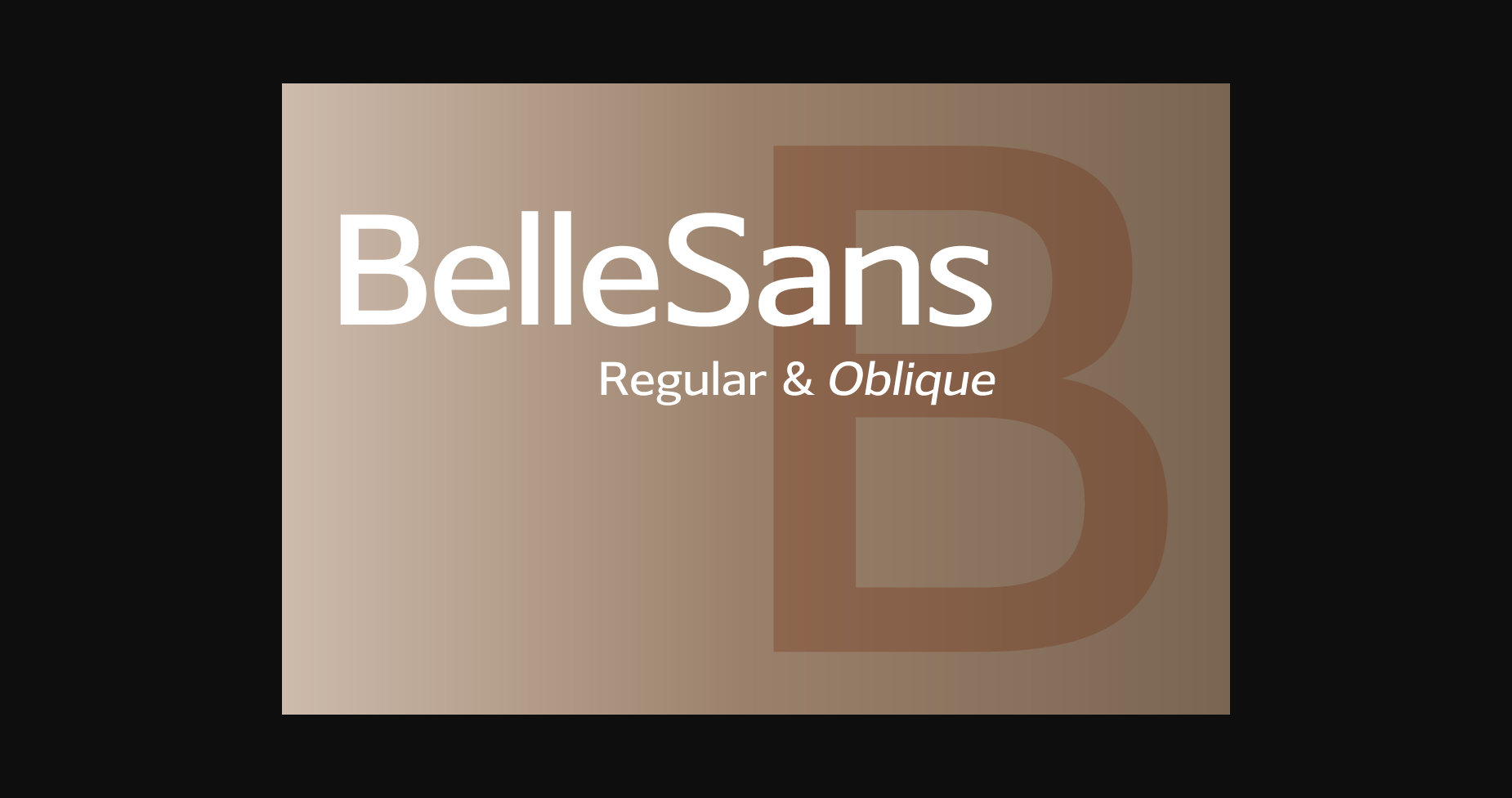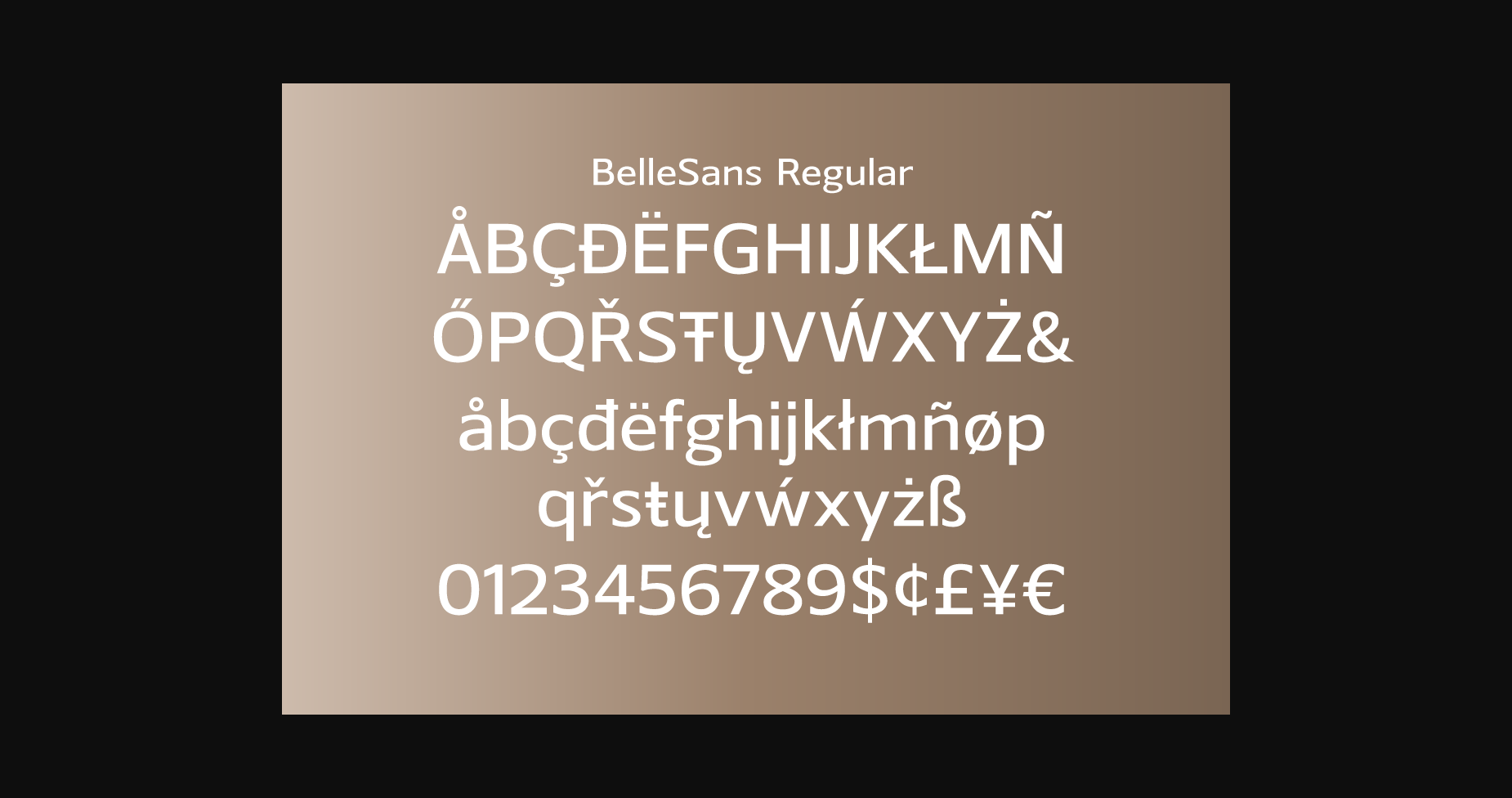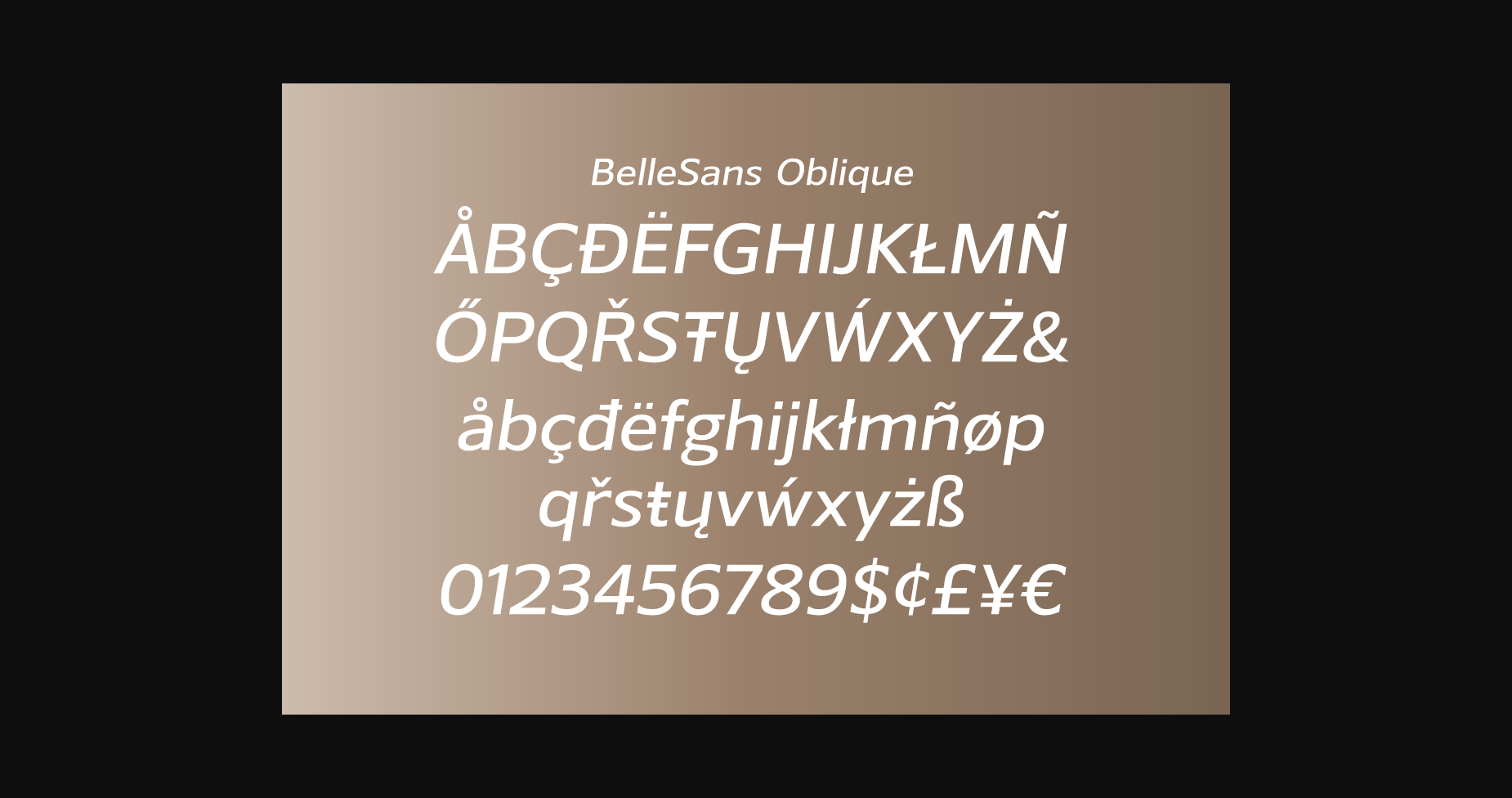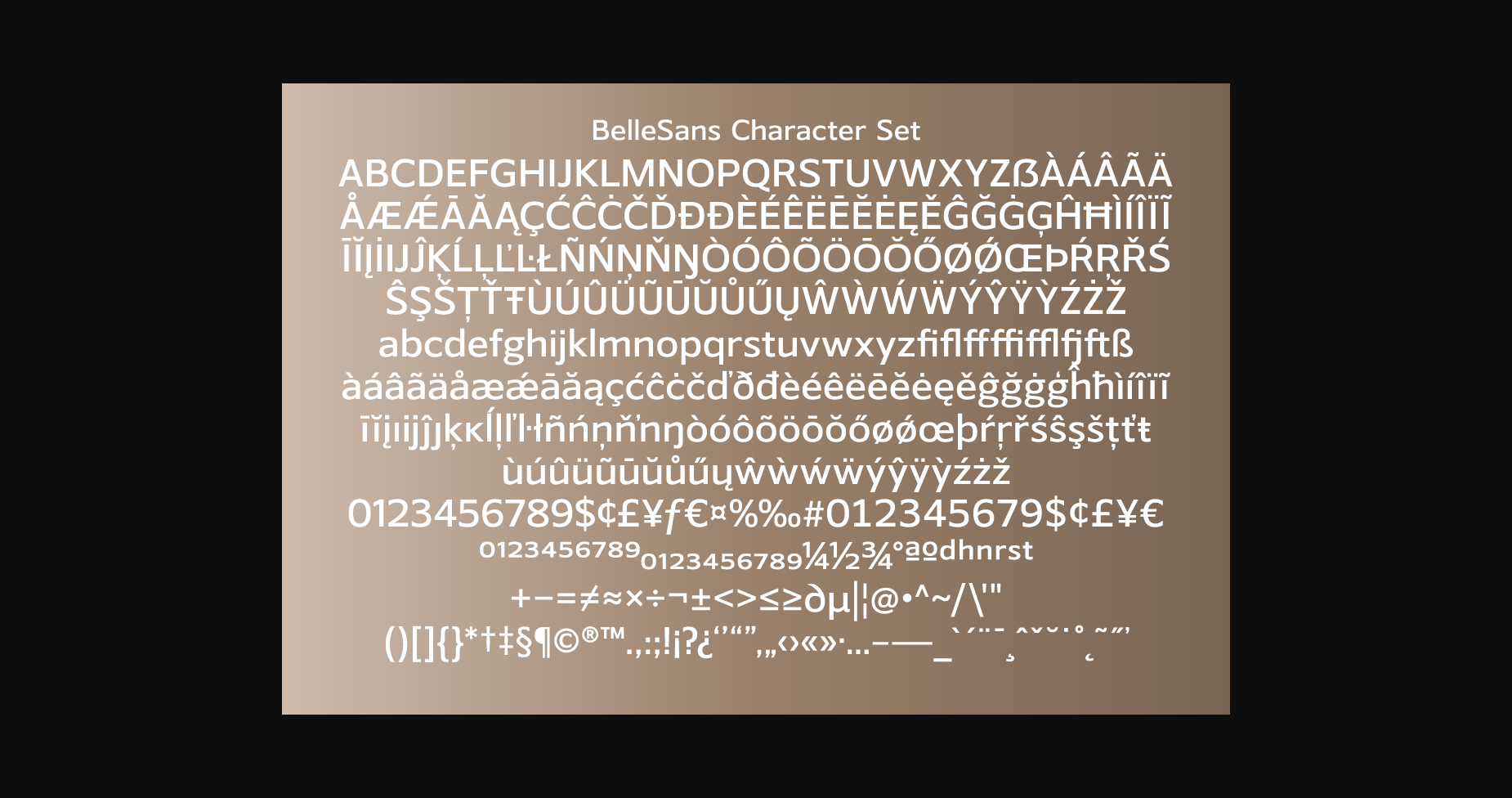
HomeSans Serif FontsBelle Sans Regular and Oblique Font Sans Serif Fonts Belle Sans Regular and Oblique Font FacebookXPinterestWhatsApp 1 of 6 ... Belle Sans Regular and Oblique Font Poster 2... Belle Sans Regular and Oblique Font Poster 3... Belle Sans Regular and Oblique Font Poster 4... Belle Sans Regular and Oblique Font Poster 5... Belle Sans Regular and Oblique Font Poster 6... About Belle Sans Regular and Oblique Font Belle Sans is a clean and modern looking sans serif font. It can easily be matched to an incredibly large set of projects, so add it to your creative ideas and notice how it makes them stand out! DOWNLOAD NOW People also explored Quiet Font Mugipayu Font Peter Quincy Font Strongend Medium Font Kembara Cinta Font Tent Show JNL Font Hightlight Font Shiny Kids Font Bubble Font 535 0 TagsBelle Sans Regular and Oblique Font Previous articleBelleSans Ultra Condensed Regular and Oblique FontNext articleGold and Queen Font LEAVE A REPLY Cancel reply Comment: Please enter your comment! Name:* Please enter your name here Email:* You have entered an incorrect email address! Please enter your email address here Website: Save my name, email, and website in this browser for the next time I comment. Personal Use Free Austins Personal Use Free Read more about this font Soria Personal Use Free Read more about this font Sellena Brush Font Personal Use Free Read more about this font Zalitta Personal Use Free Read more about this font BLOG Fonts That Capture the Spirit of New York City New York City is more than just a place—it’s an experience, a rhythm, a visual language... How to Cut Any Font on Cricut: Convert a Font to SVG (Free) Free vs Paid Fonts: Why Investing in Premium Fonts Is Worth It How to Install and Use Fonts on Windows, macOS, and Web Projects